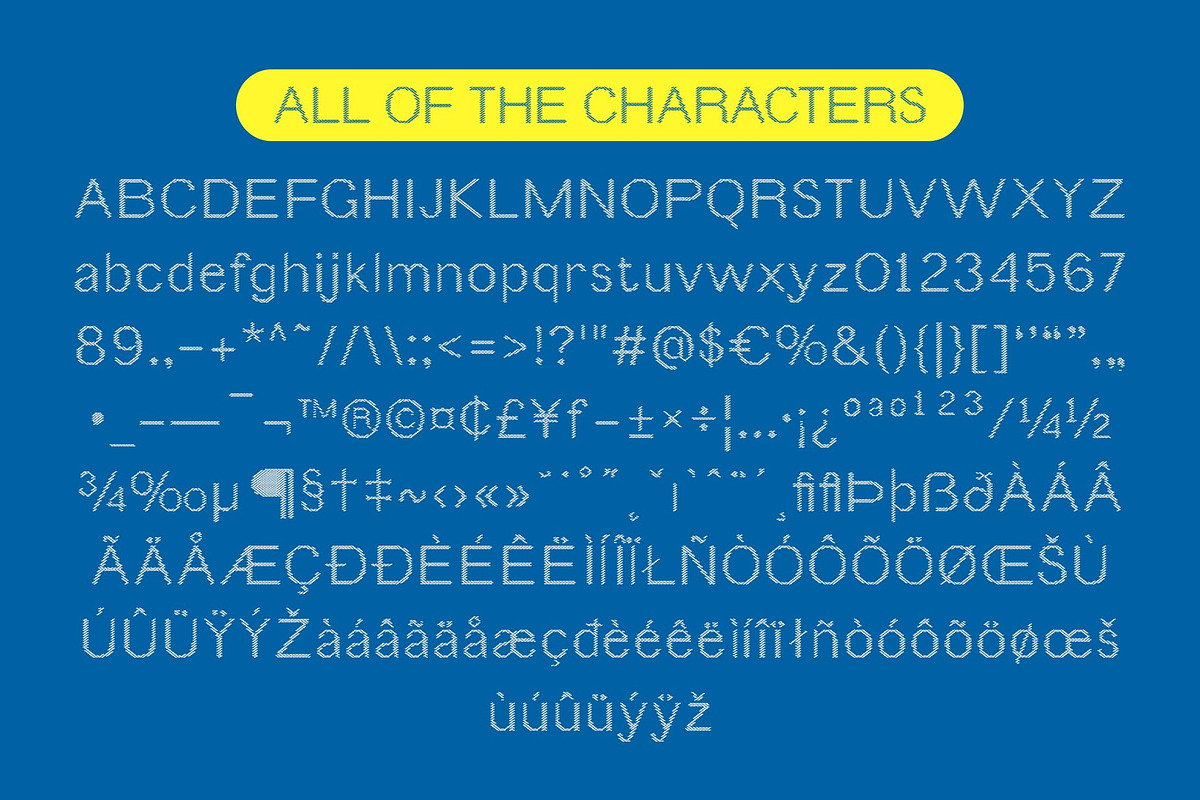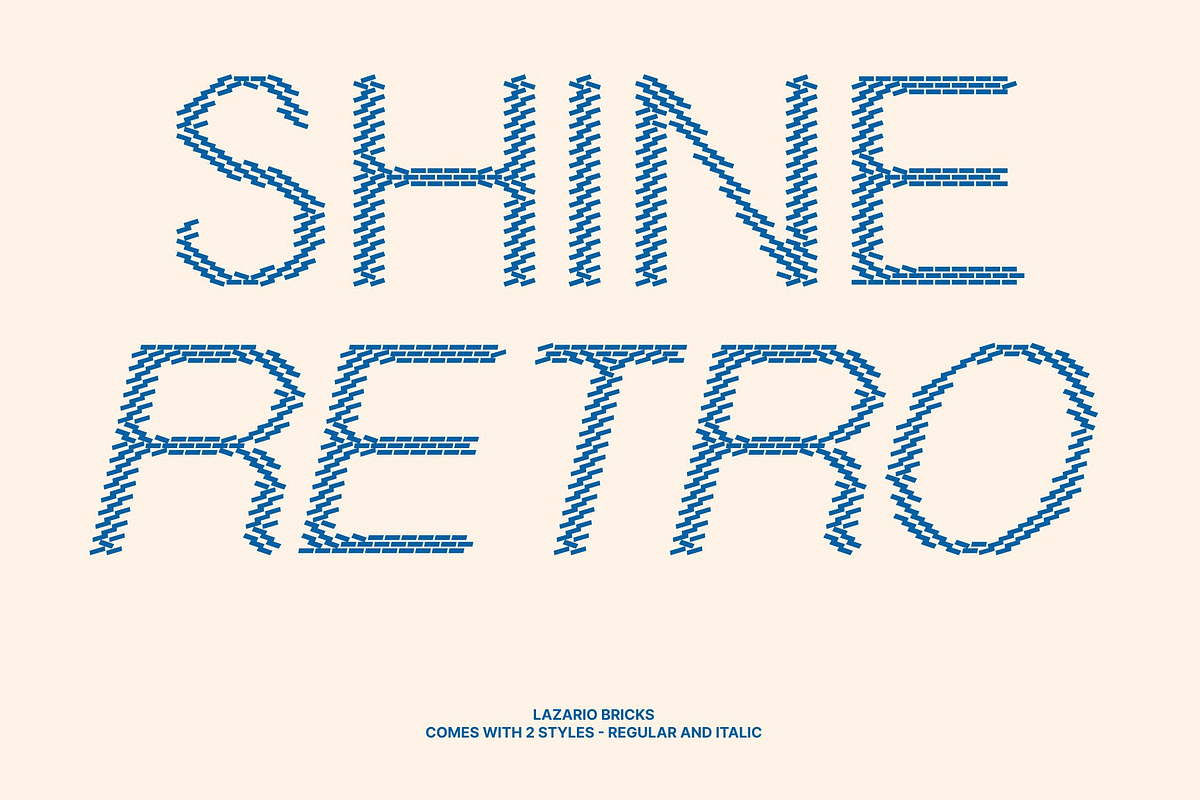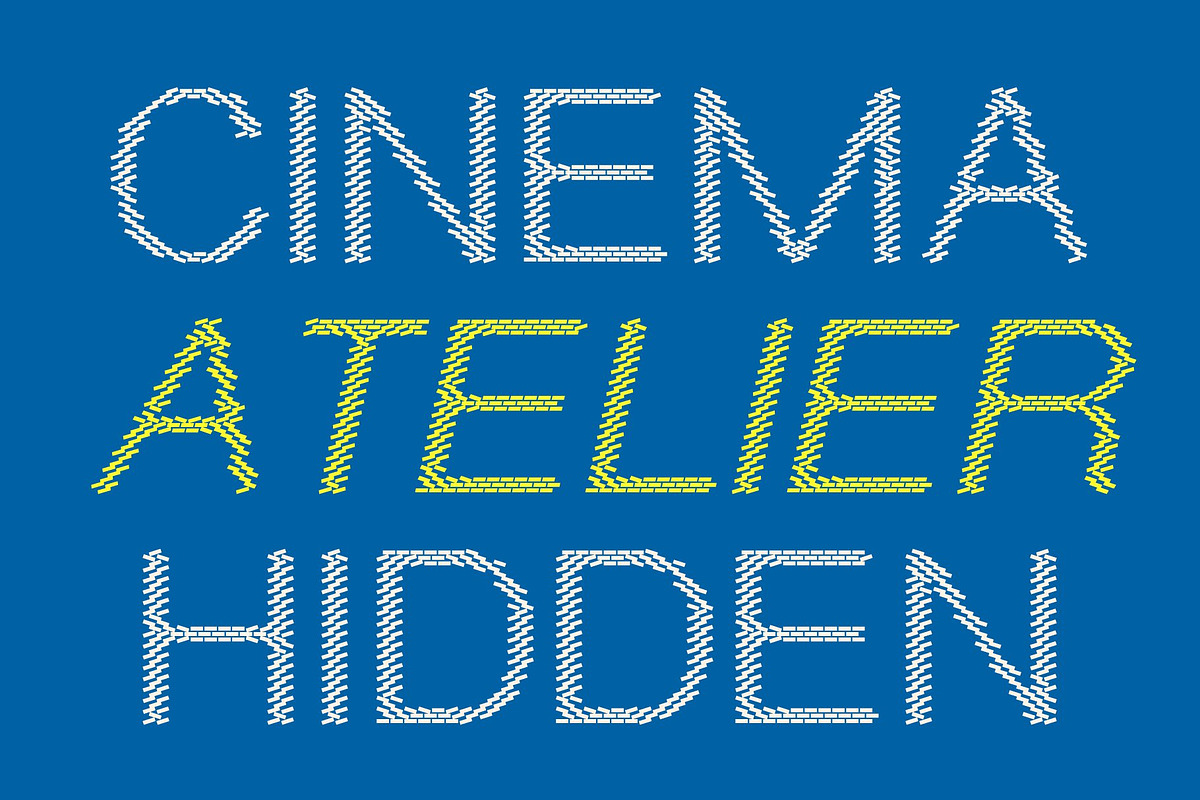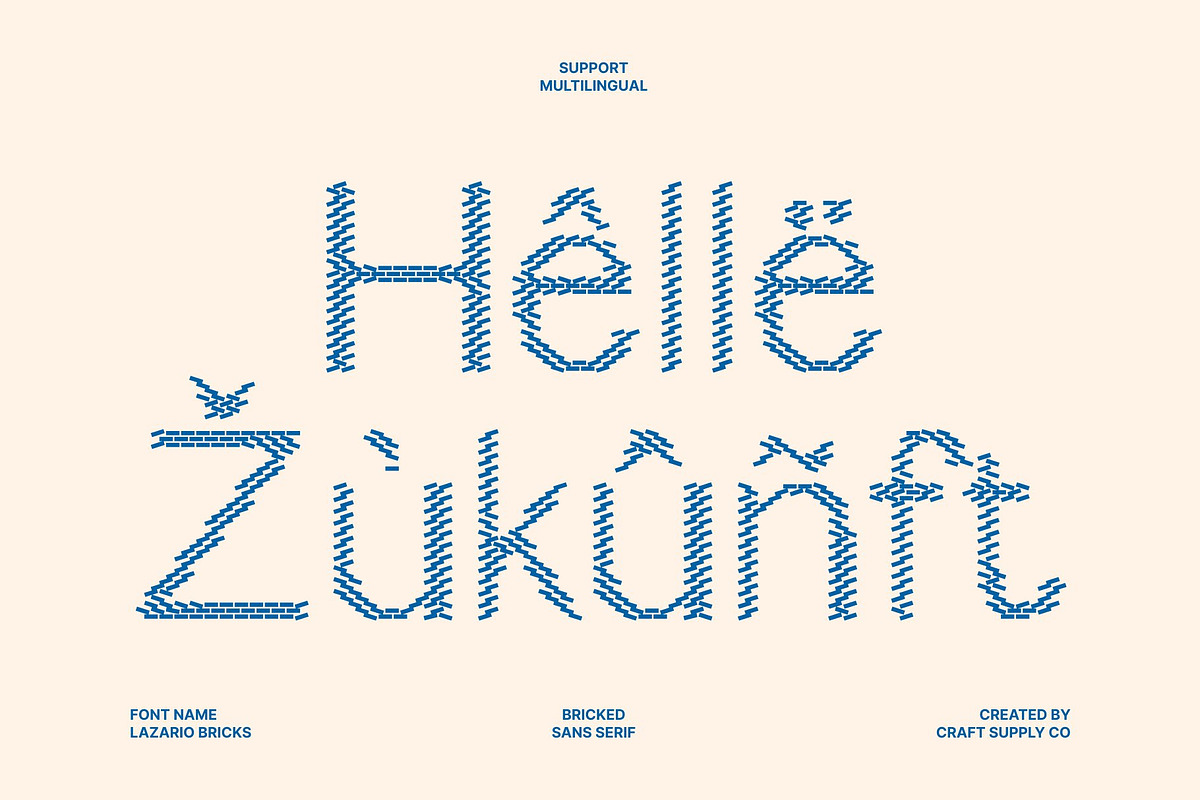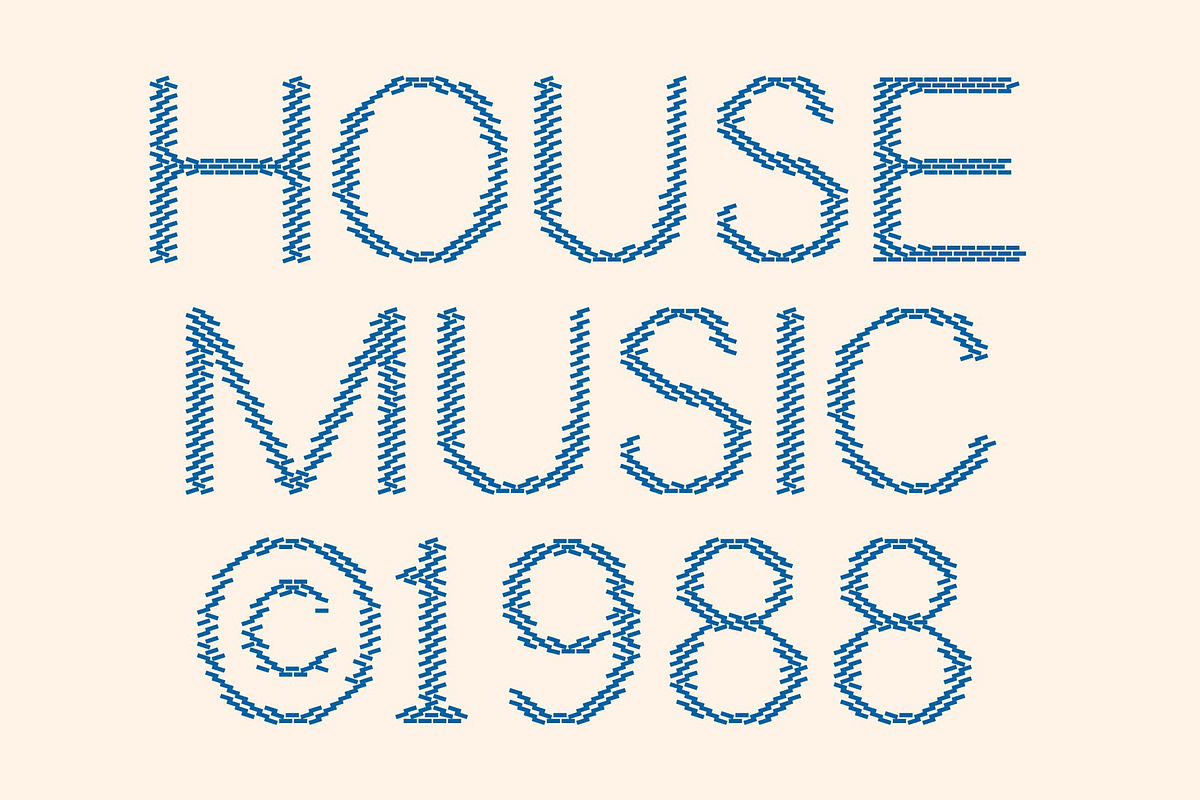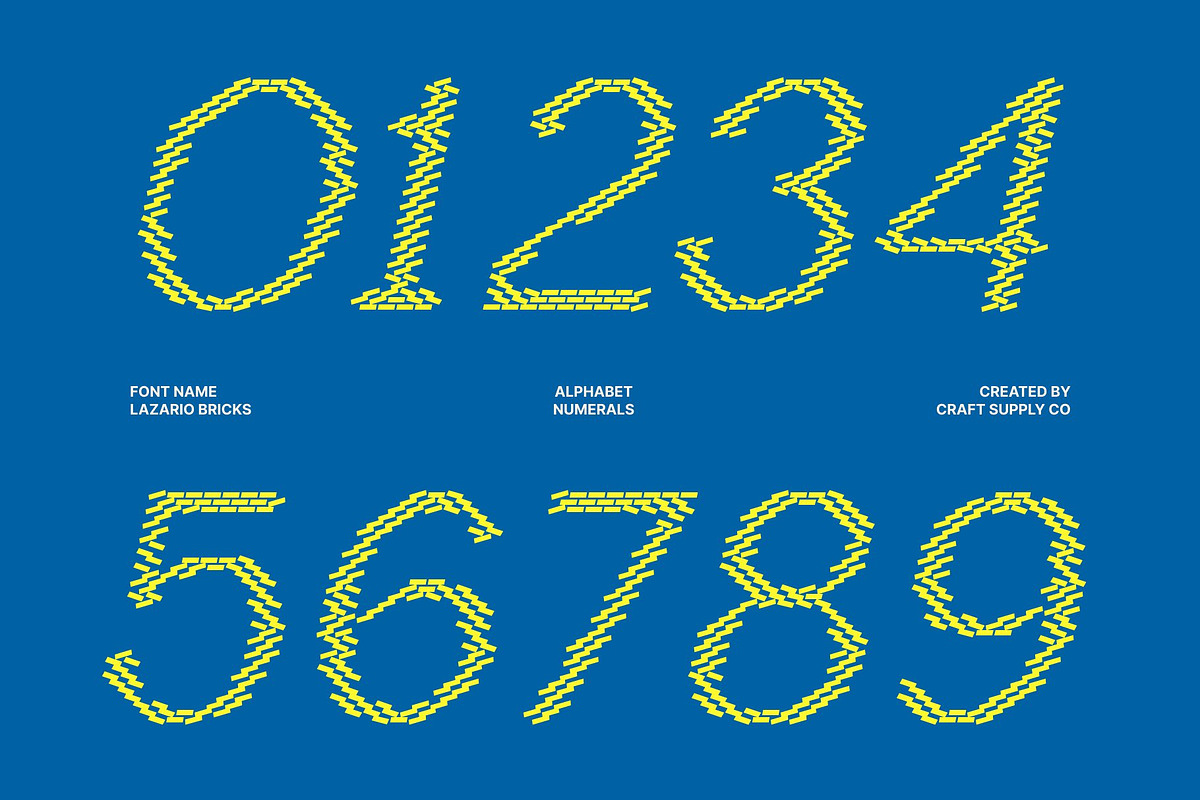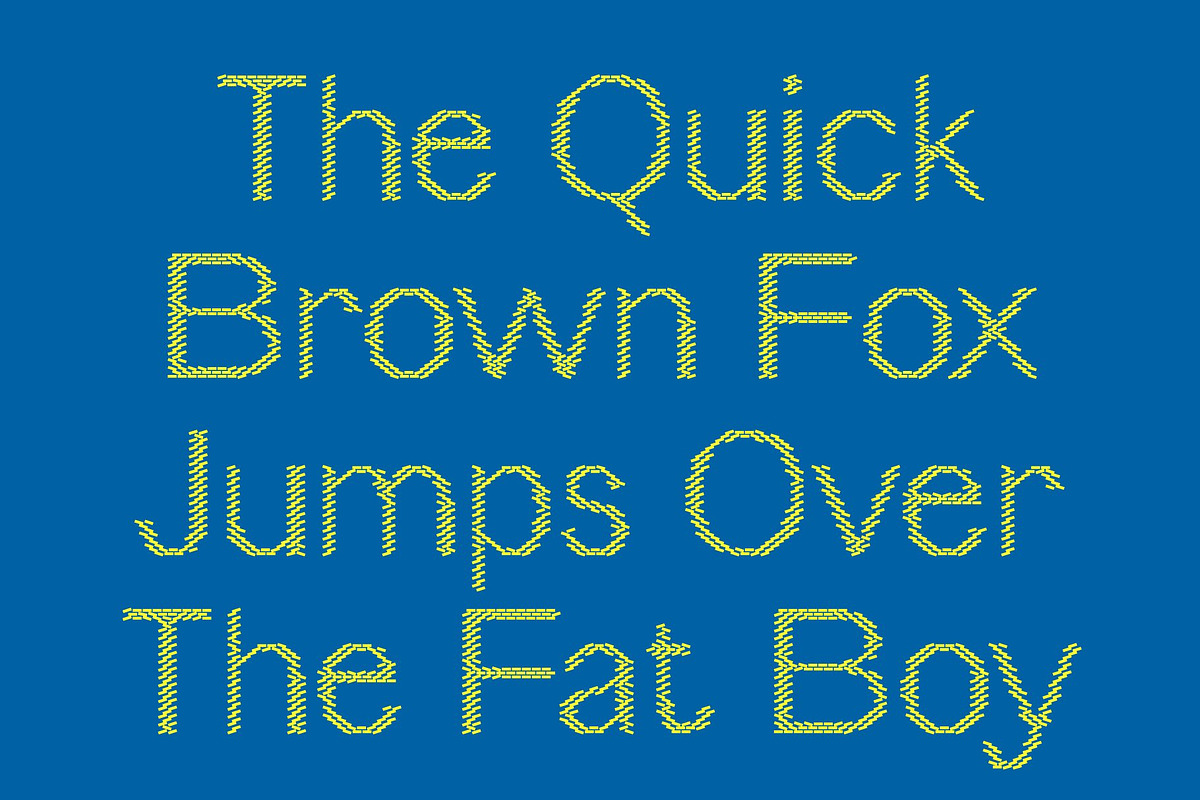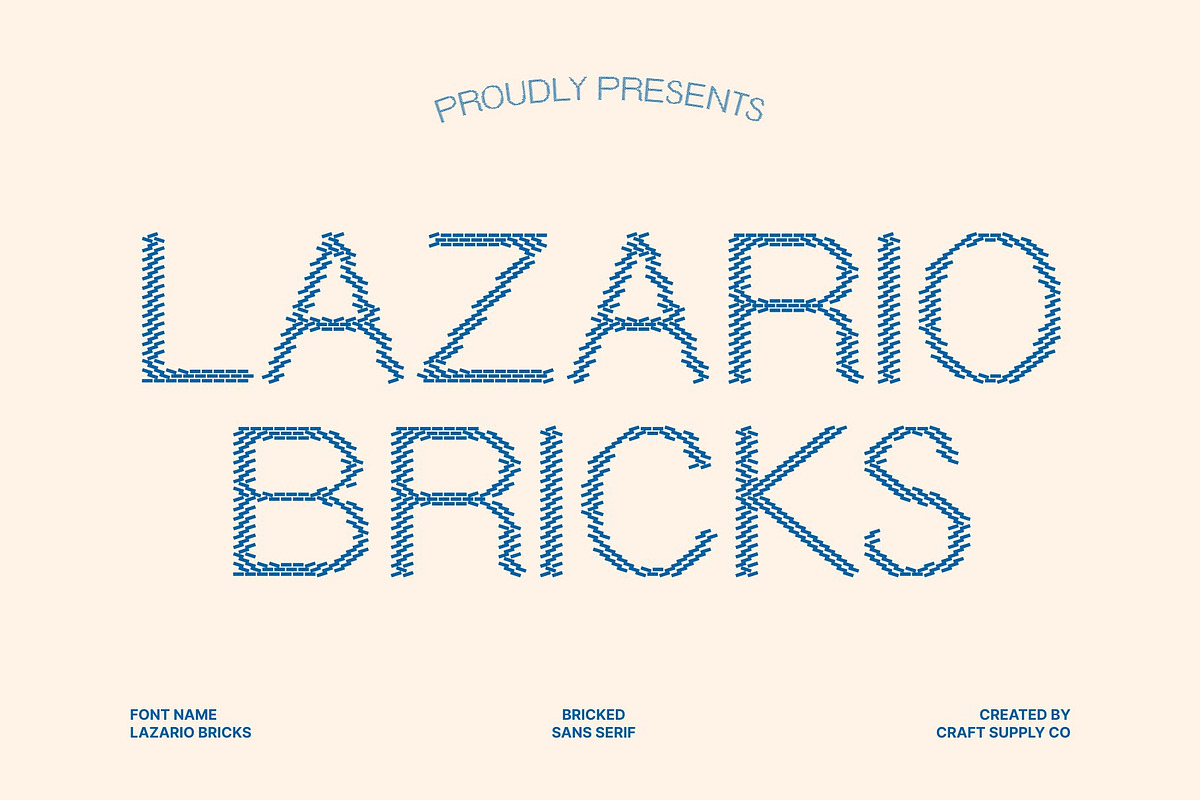
Lazario Bricks
Lazario Bricks – Geometric Sans Serif Display Font: Where Precise Minimalism Meets Structured Brick Texture
Thin Geometric Forms with Modern Precision This is a geometric sans serif display font built with precise thin shapes and a clean contemporary structure. Its refined geometry and balanced proportions create a sleek, modern appearance that feels elegant, professional, and visually consistent. Every character is crafted with clarity and precision, making the font perfect for minimalist display compositions and modern branding systems.
Brick-Inspired Texture with Decorative Architectural Character This font features decorative textures that make each letter appear as if constructed from brick elements. This structured detailing introduces a rugged architectural quality and tactile visual depth while preserving the font’s clean geometric foundation. The result is a striking blend of refined minimalism and expressive textured design.
Modern Simplicity with Contemporary Urban Style This font delivers a typographic identity that feels modern, artistic, and visually engaging. Its clean lines combined with structured texture create a versatile atmosphere suitable for creative branding, editorial design, and attention-grabbing visual layouts.
Perfect for Logos, Headlines, and Modern Layouts This font perfect for logos, quotes, posters, branding, name cards, design titles, blog headers, art quotes, headlines, and captivating modern layouts. Its geometric brick-textured forms make it ideal for signage, packaging, editorial visuals, merchandise, and visual identities that seek a refined yet characterful appearance.
Lazario Bricks Regular
Lazario Bricks Italic